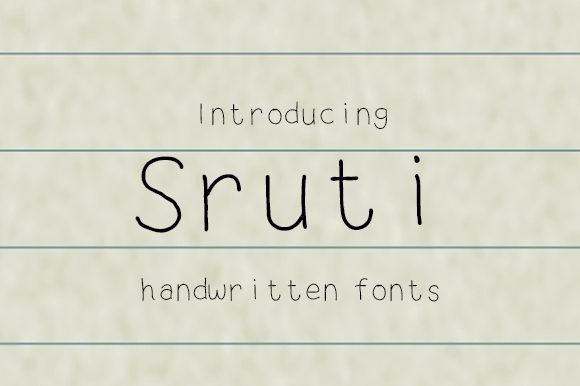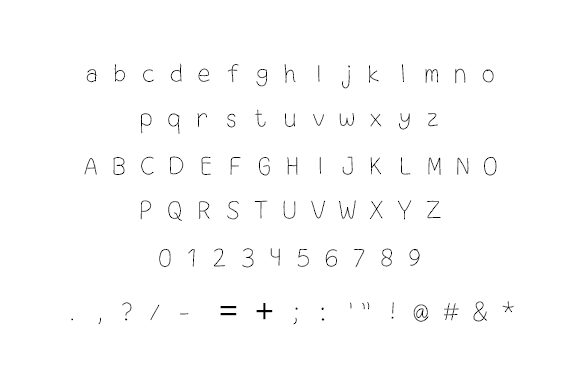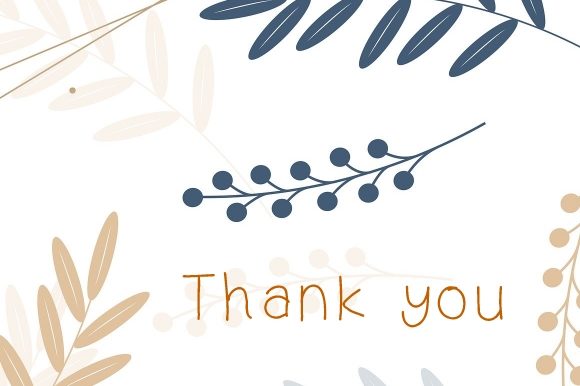
Sruti Font
About Sruti Font
Sruti is a casual and friendly handwritten font. Clean and a little bit quirky, this font is the perfect fit for all of your logos, branding, social media, and crafty DIY projects.